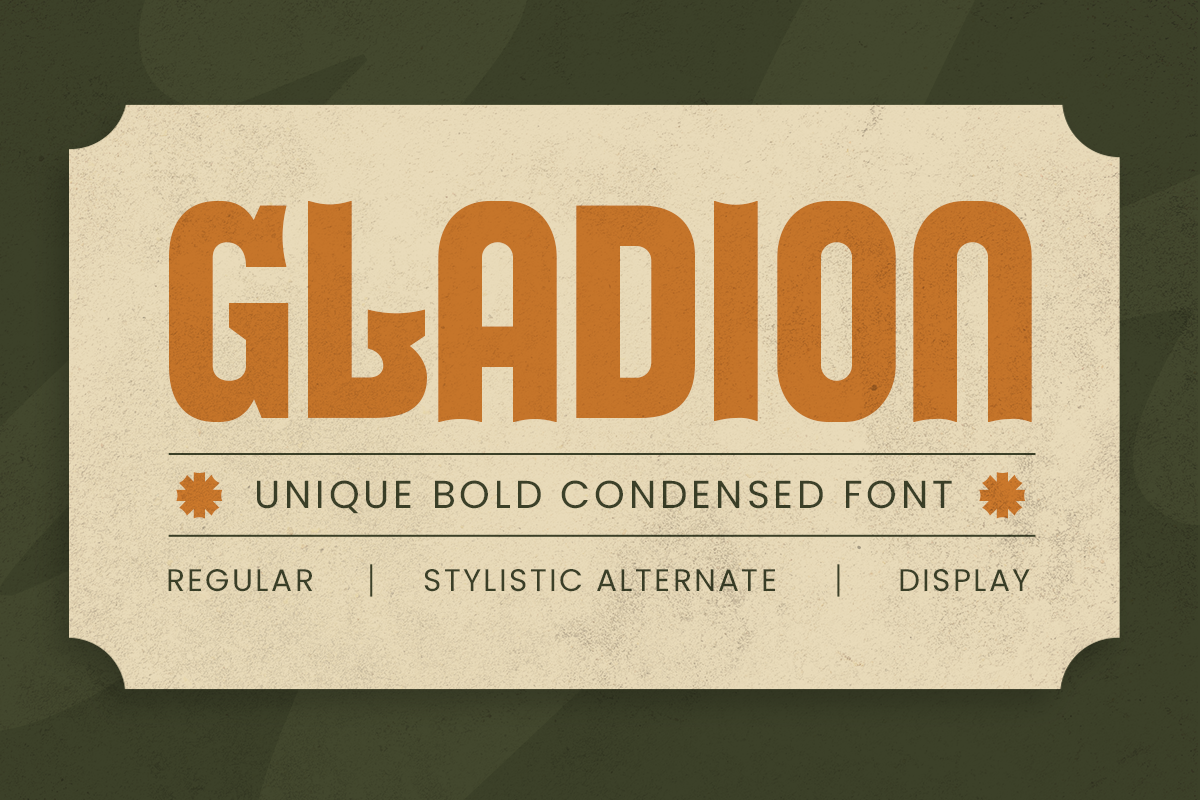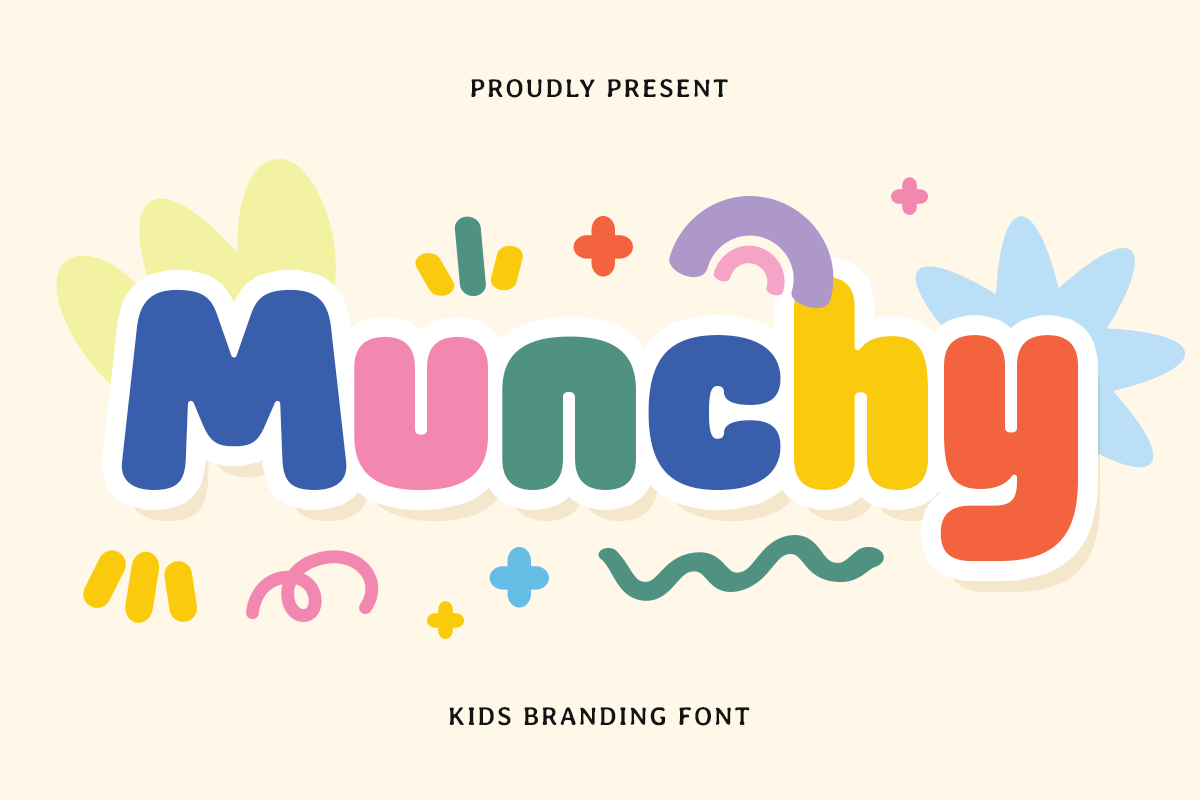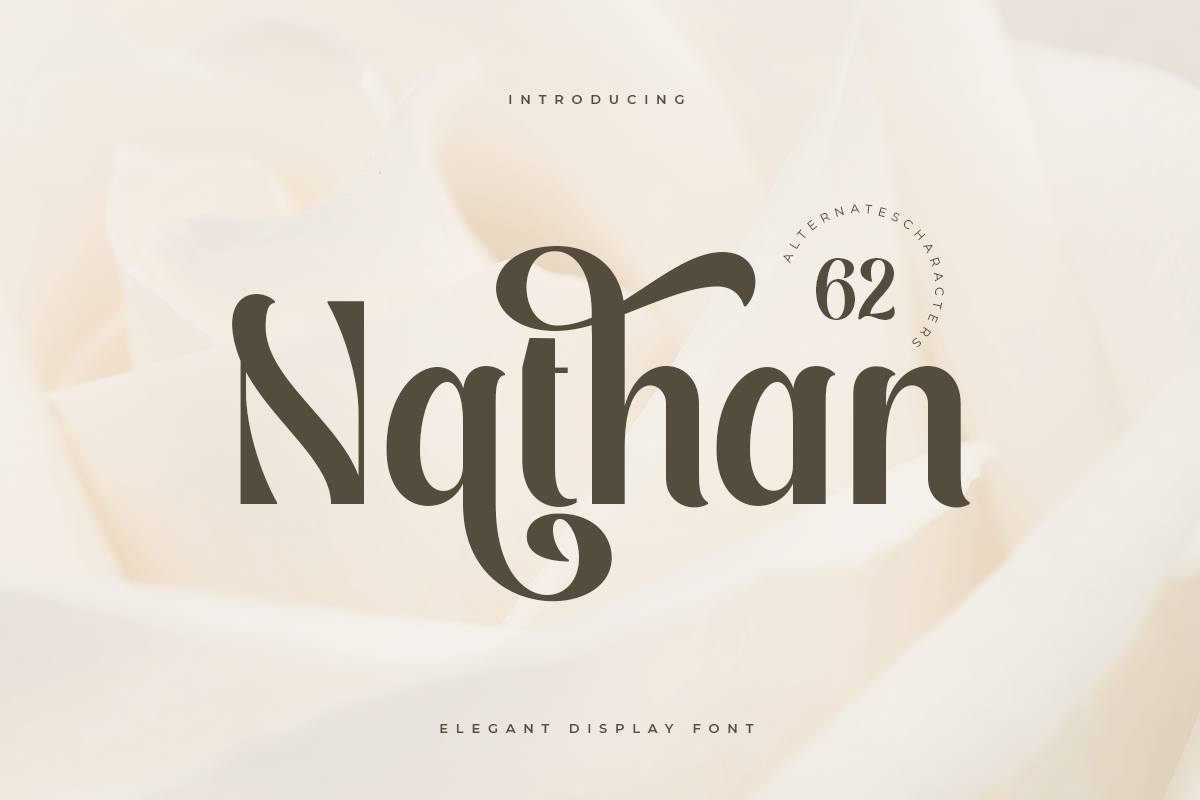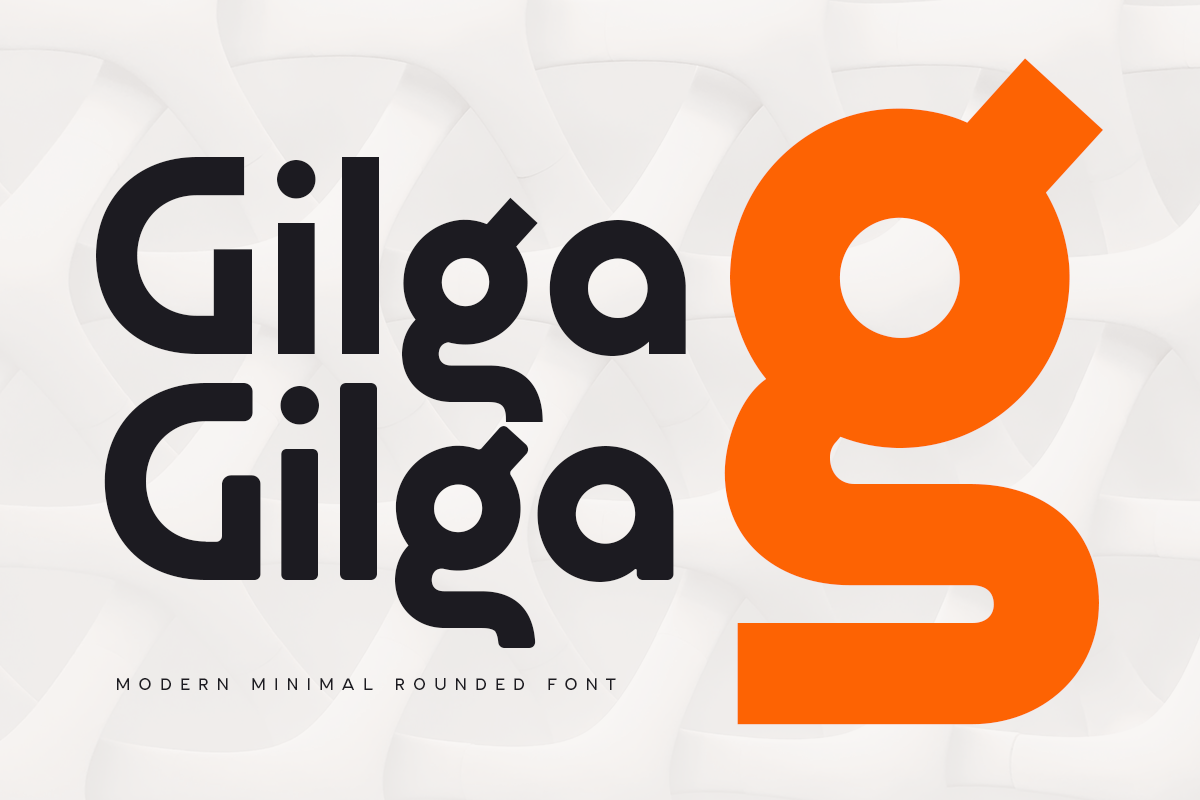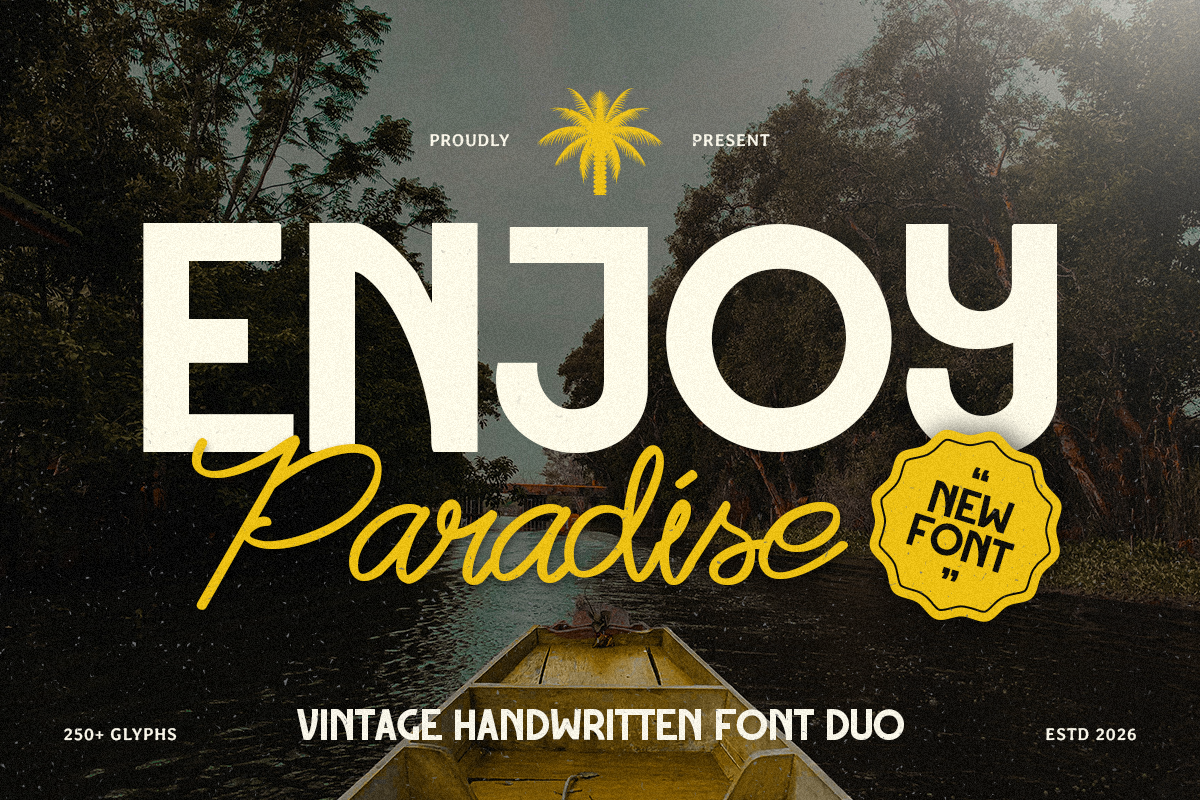
April 2026 Design Ideas, Holidays, and Font Inspiration
April 2026 Design Ideas, Holidays, and Font Inspiration explores creative campaign opportunities for designers, content creators, and growing brands throughout the month. From the elegant cultural storytelling of Hari Kartini to the eco-conscious visual direction of Earth Day and the literary editorial mood of World Book Day, April offers a rich mix of themes for seasonal content planning.
April 2026 Design Ideas, Holidays, and Font Inspiration
April is one of those months that quietly carries a lot of creative energy. For designers, content creators, and growing brands, it offers a rich mix of elegant storytelling, nature-inspired visuals, cultural moments, and thoughtful editorial direction. If you are planning your seasonal content ahead, this month has plenty to work with.
April has a rare kind of flexibility. Some months lean heavily into one mood, but April opens several doors at once. You can create content that feels graceful and culturally rich, or go in a clean and eco-conscious direction. You can also build visuals that feel editorial, educational, and timeless.
That range makes April especially useful for brands that want to stay relevant without forcing a trend. It works well for social media campaigns, website banners, quote graphics, promotional posters, email headers, and branded storytelling content. The month invites you to design with intention, not just decorate for a date.
Another reason April stands out is its balance. It has celebratory moments, awareness-led themes, and storytelling opportunities that can all be translated into strong visual systems. For creative teams, that means the month is not just busy. It is usable.
April Color and Visual Theme Ideas
April offers several strong moments that can be turned into visual content, especially Kartini Day, Earth Day, and World Book Day. These are not just important dates on the calendar. Each one brings its own mood, color palette, and visual language, making them highly valuable for campaign planning. Altogether, these three moments show that April is a month full of visual opportunities, ranging from elegant and cultural, to natural and eco-friendly, to editorial and deeply thoughtful.
April has a beautiful visual range, and that is part of its strength. For elegant and heritage-inspired content, warm neutrals, soft gold, muted blush, and creamy beige work beautifully. These tones feel polished and gentle, making them ideal for Kartini-themed visuals.
For Earth Day or eco-focused branding, earthy greens, clay, natural beige, moss, sage, and soft white create a grounded, organic feel. Add subtle textures and botanical elements for depth. For editorial or book-inspired content, cream, black, muted brown, charcoal, and parchment-like tones create a classic, thoughtful mood. These colors work especially well with clean compositions and strong typography.
If you want a more seasonal overall direction, floral and airy palettes can also work in April. Soft peach, warm ivory, pale green, and light earthy tones can create content that feels fresh without looking overly sweet.
Font Alternative
Enjoy Paradise - Vintage Handwritten Font Duo
Enjoy Paradise is a vintage handwritten font duo designed to capture the warmth of retro lettering with expressive handcrafted charm. Combining two complementary handwritten styles, this duo creates a nostalgic visual tone that feels classic, relaxed, and full of personality—perfect for projects that need timeless vintage appeal.
Nathan - Elegant Display Font
An Elegant Display Serif font that we created special for elegant branding needs, with unique shape will be ready to add value of your brand. It so nice to leverage designer or product owner that need solutions to make their design look more stylish and modern.
Munchy - Kids Branding Font
Munchy is a bold and bouncy kids font created to bring joy and playfulness to branding and design projects. With rounded edges, quirky characters, and a friendly style, Munchy is perfect for toy packaging, children’s books, educational materials, logos, birthday invitations, and more. It instantly captures attention with a fun and approachable personality
Gladion - Unique Bold Condensed Font
Gladion is a unique bold condensed font crafted to stand out with confidence. Designed with high-impact visuals in mind, its tall structure and tight spacing make it perfect for attention-grabbing headlines, bold branding, and editorial statements.
Gilga - Modern Minimal Rounded Font
Gilga is Modern Minimal Rounded Font that's a Geometric Modern font with a minimalist, unique, and premium sans serif font that you can combine to get any variations and unique shapes easily just in seconds with choose alternates of them.
The best part is that April does not push you into one fixed aesthetic. It gives you room to choose the mood that fits your brand and turn it into a visual system that feels timely, polished, and genuinely useful